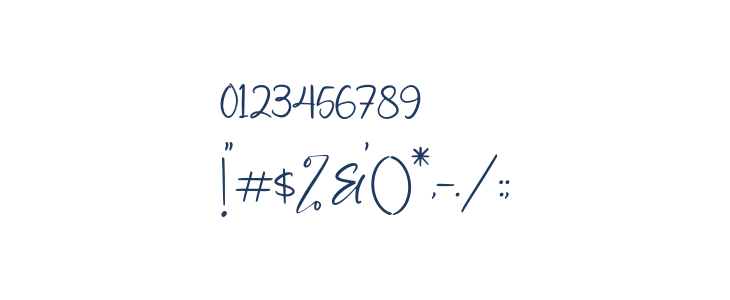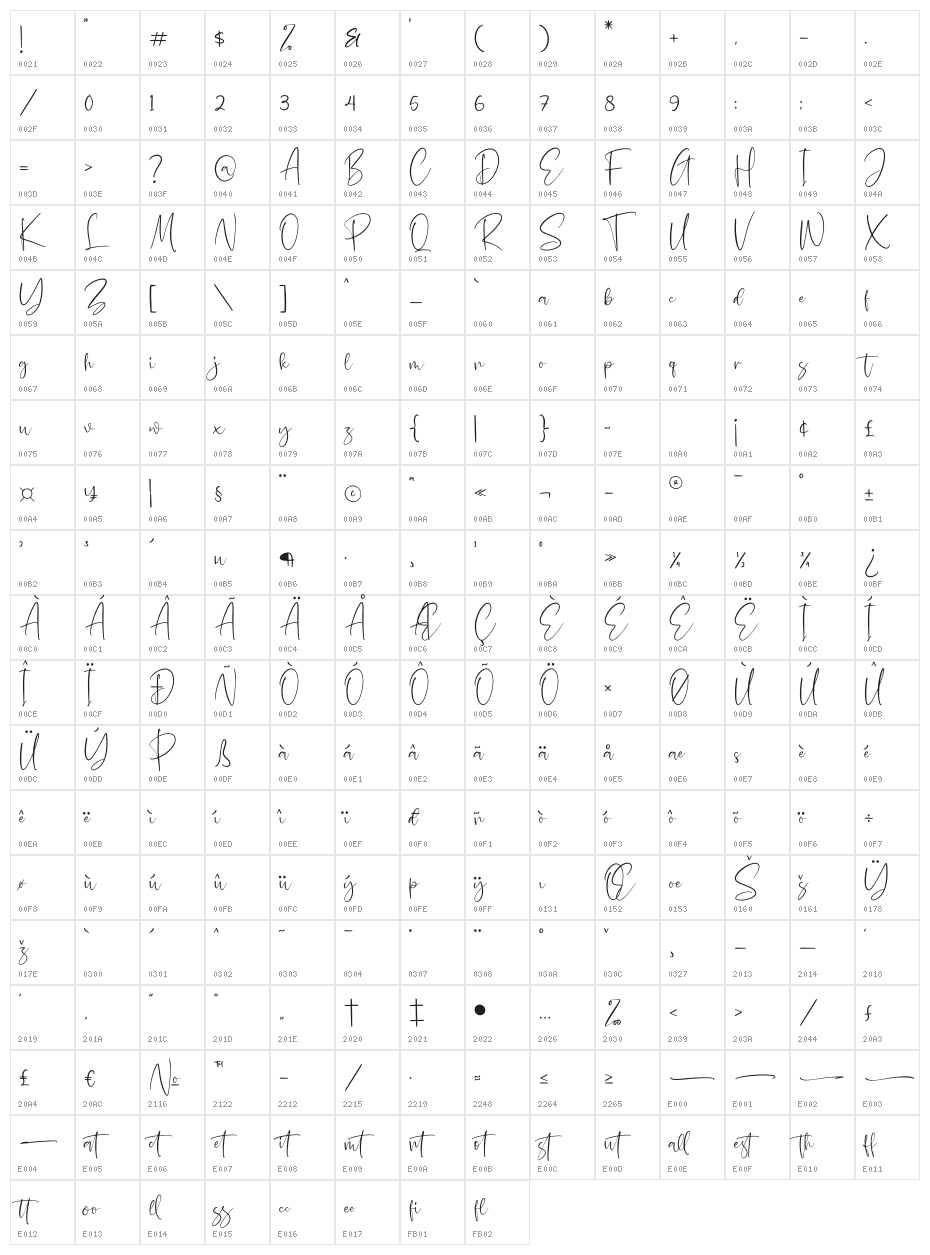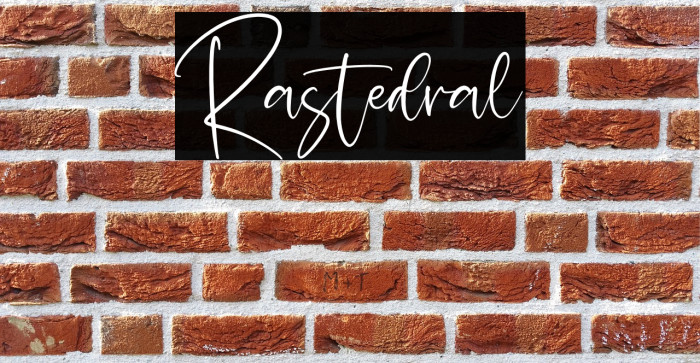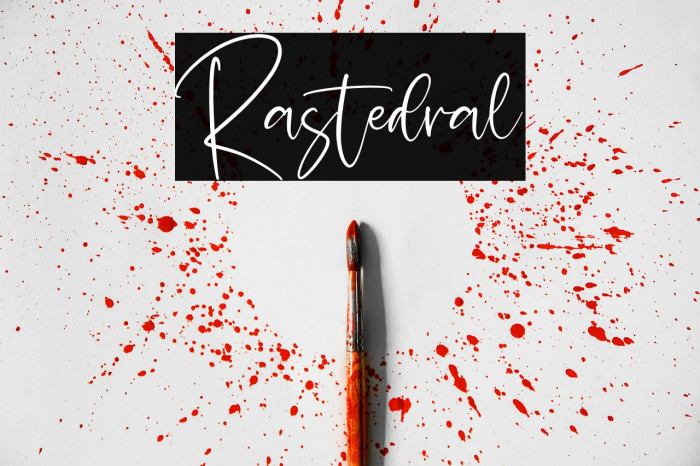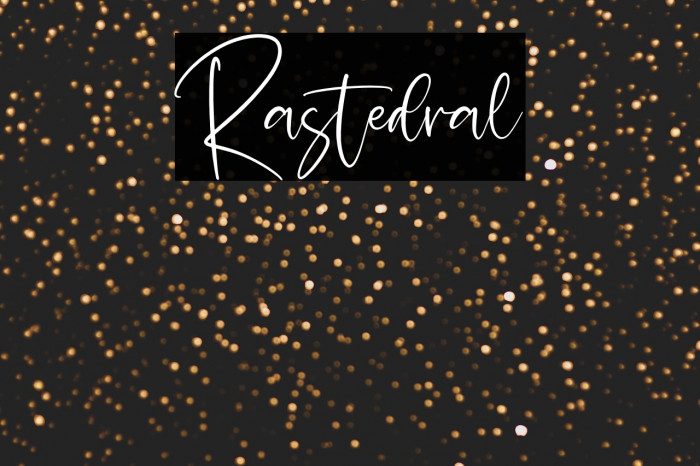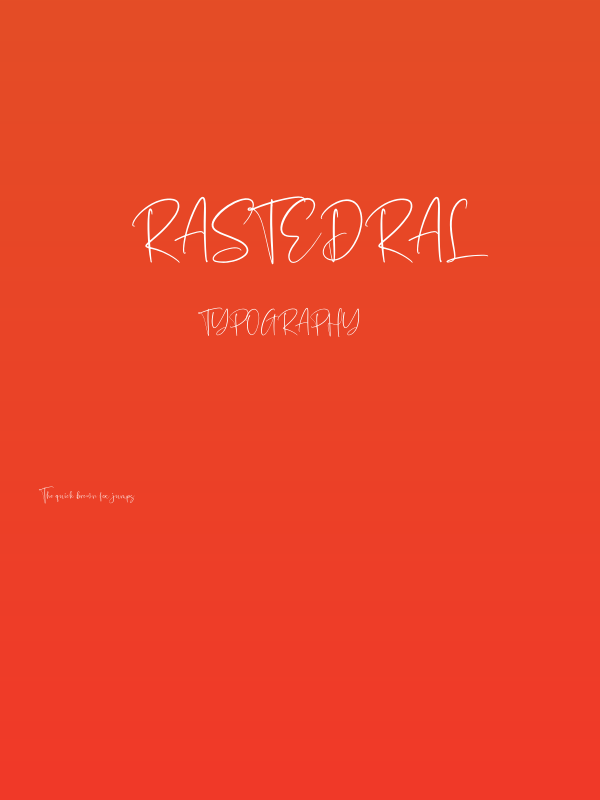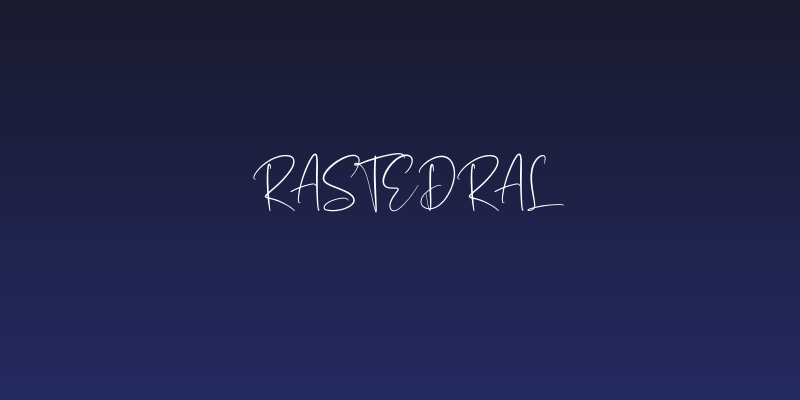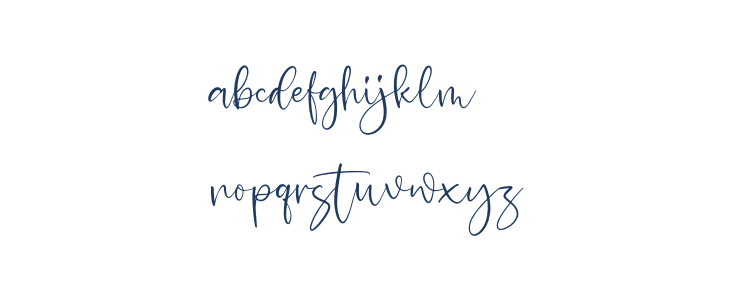
Rastedral Font
Rastedral Description
This font exhibits a lively and expressive handwritten style, characterized by its fluid and dynamic strokes. The uppercase letters are bold and sweeping, with a playful yet elegant flair, while the lowercase letters maintain a consistent flow, enhancing readability. The numerals are distinct and maintain the same energetic style, making them stand out. Special characters are creatively integrated, adding a unique touch to the overall design. The font's organic and freeform appearance makes it ideal for projects that require a personal and artistic touch.
| Use Case | Logos, Headlines, Artistic projects |
| Proposed Projects | Ideal for wedding invitations, greeting cards, branding projects, and artistic posters. |